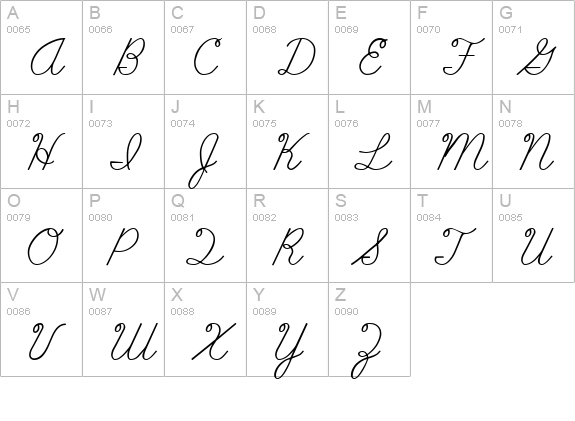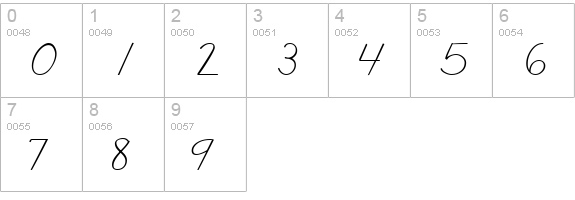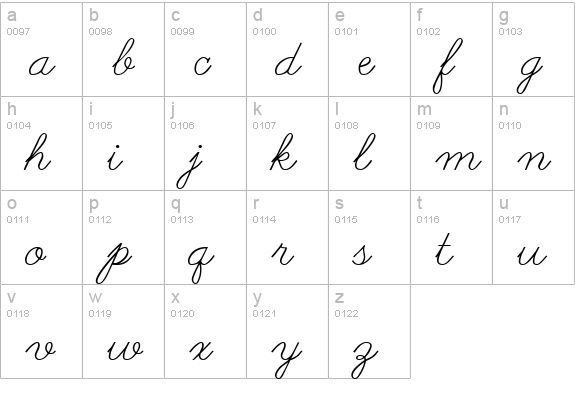
AbcCursive Font Details
Introducing AbcCursive font - a beautifully crafted cursive typeface that exudes elegance and sophistication. Perfect for adding a touch of charm to your projects, AbcCursive features flowing lines and delicate curves that make it ideal for invitations, branding, and more. The best part? AbcCursive is completely free to download at FontsMarket.com! This means you can elevate your designs with this stunning font without any cost involved. Don't miss out on this opportunity to enhance your creative projects with the timeless beauty of AbcCursive. Download it today and let your creativity flourish!